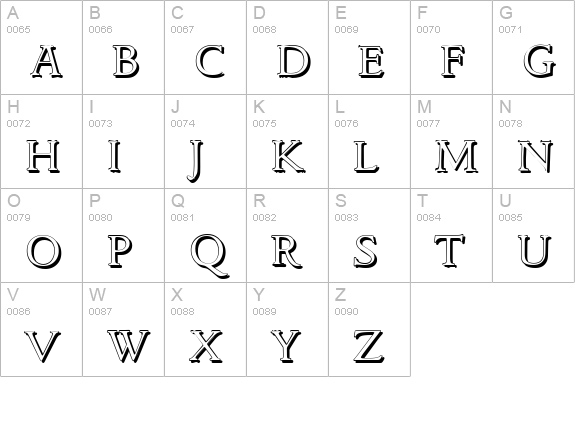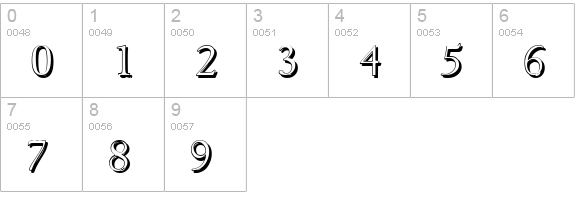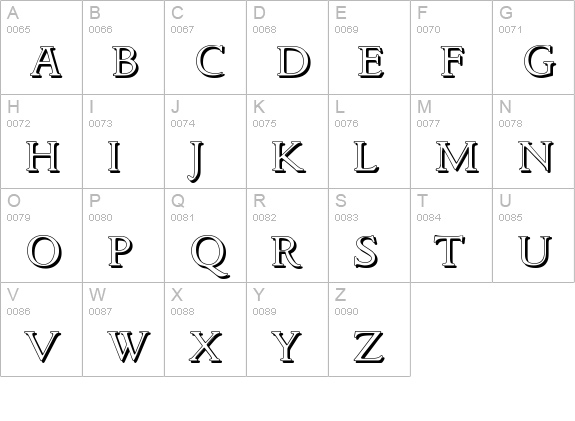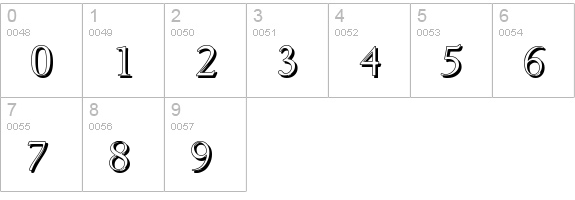
GouditaShadow-Light-Regular is a refined, elegant variant in the GouditaShadow typeface family \xE2\x80\x94 well suited to elegant body text, refined sub-headings, and luxury branding.
GouditaShadow-Light-Regular is a stunning and elegant font that exudes sophistication and charm. Its delicate and intricate design makes it perfect for adding a touch of class to any project. The shadow effect adds depth and dimension, making your text stand out beautifully. This font is ideal for a wide range of design projects, from invitations to branding to packaging. Its versatility and timeless appeal make it a must-have in any designer's toolkit. The best part? GouditaShadow-Light-Regular is available as a free download at FontsMarket.com. So, you can easily add this gorgeous font to your collection without any hassle. Don't miss out on this amazing opportunity to elevate your designs with GouditaShadow-Light-Regular!